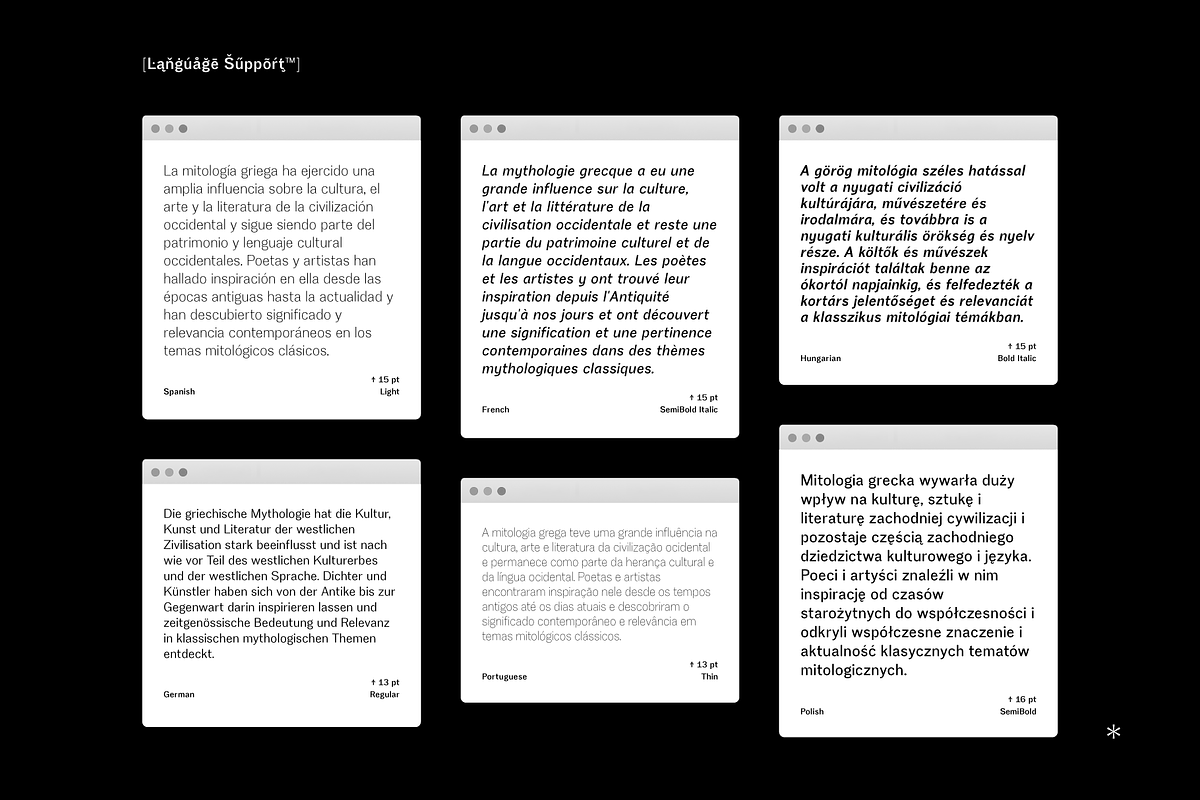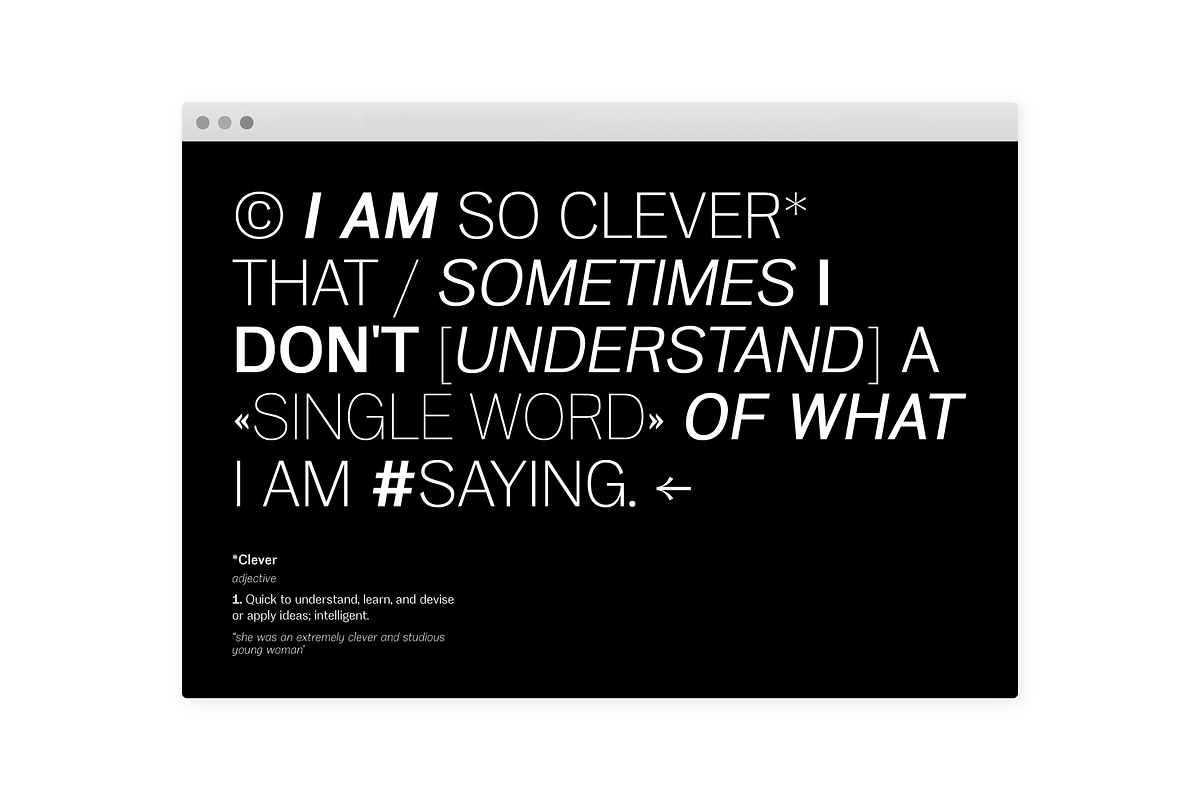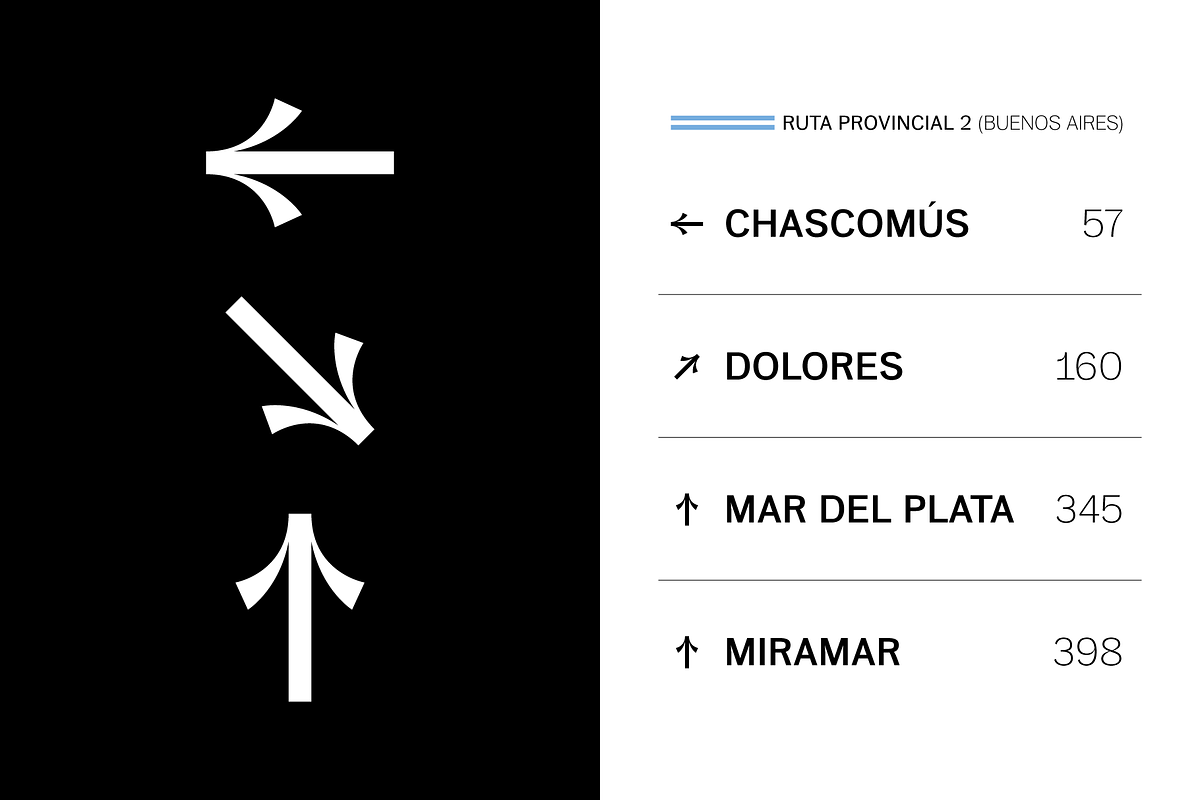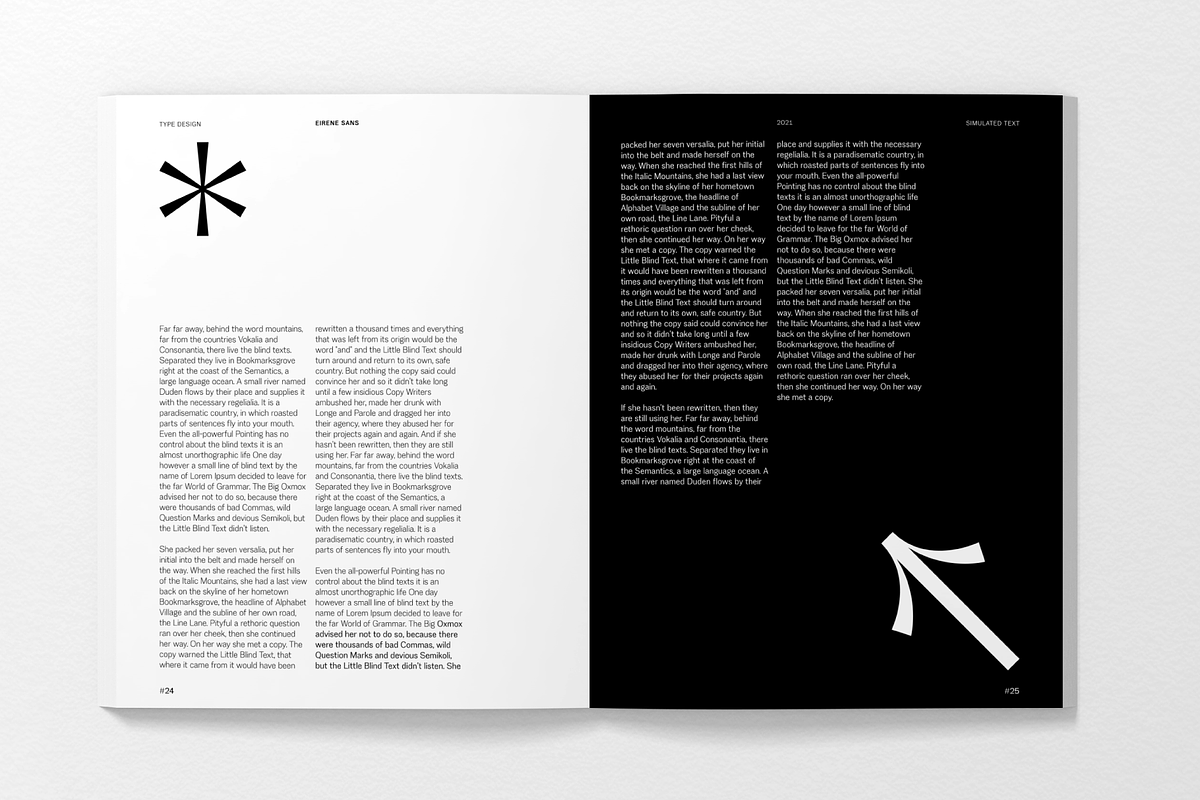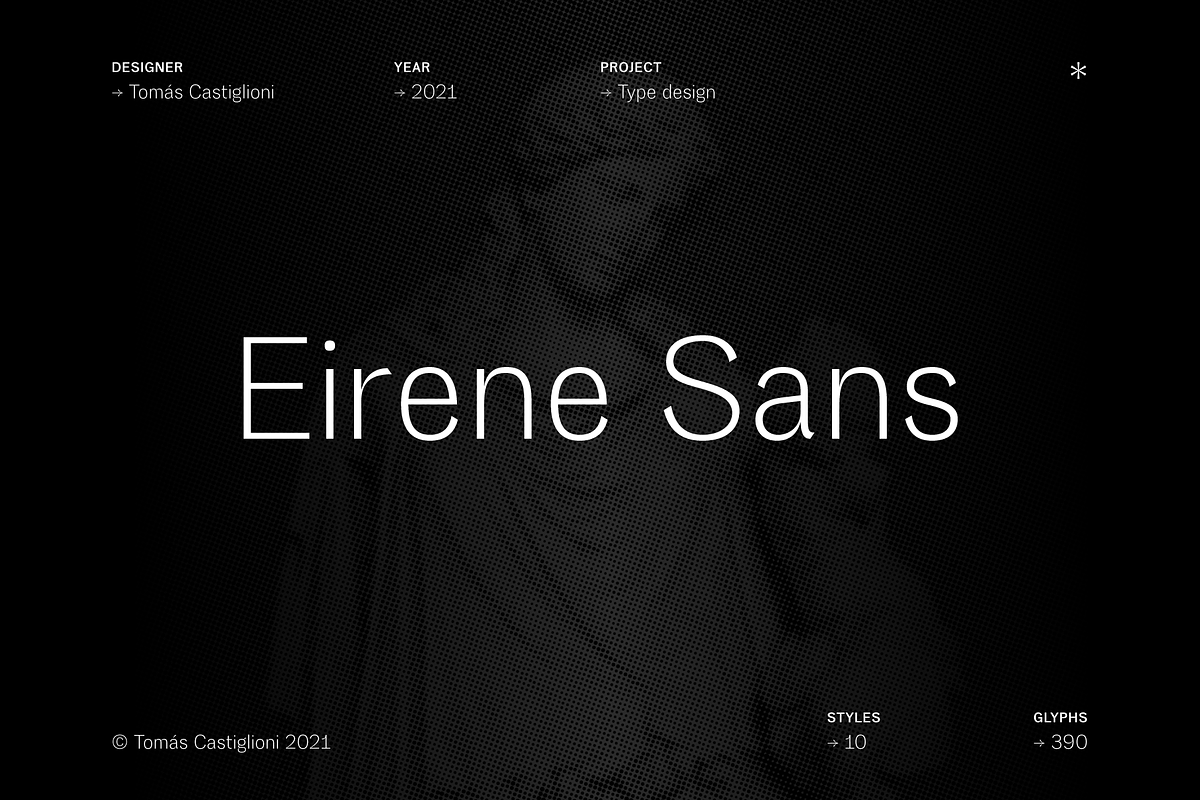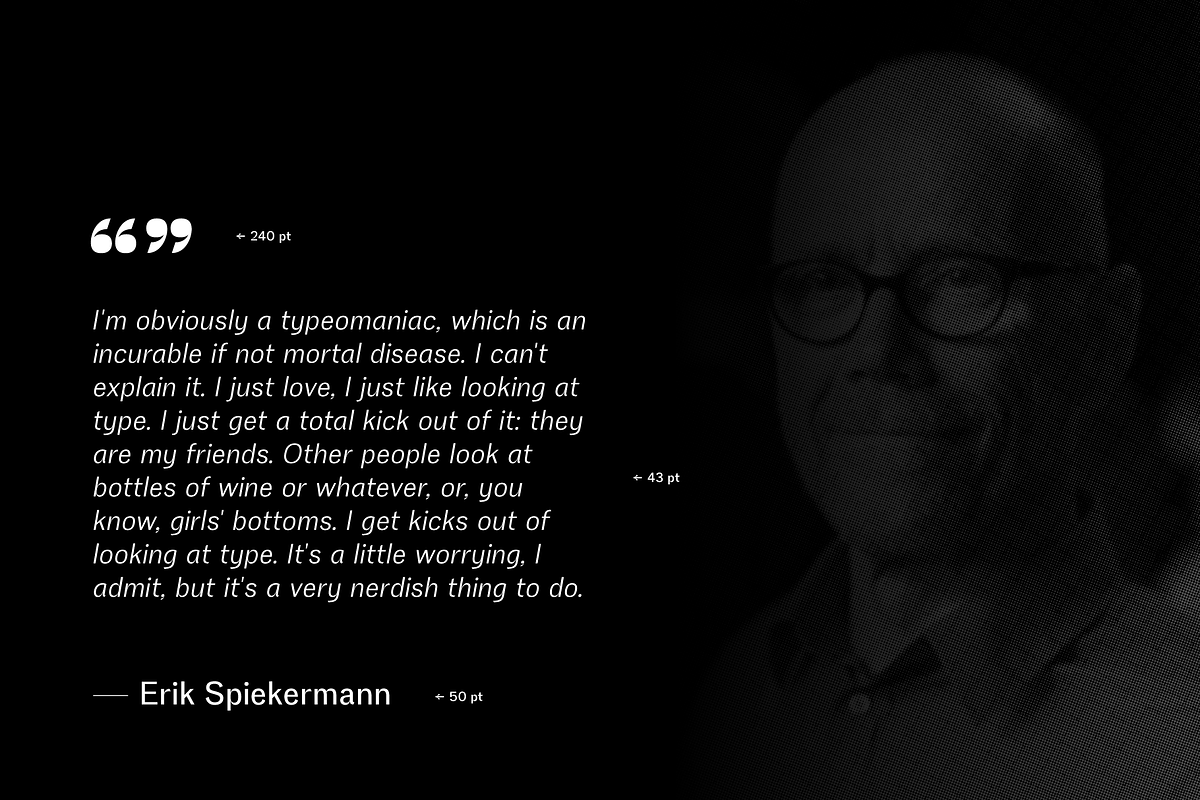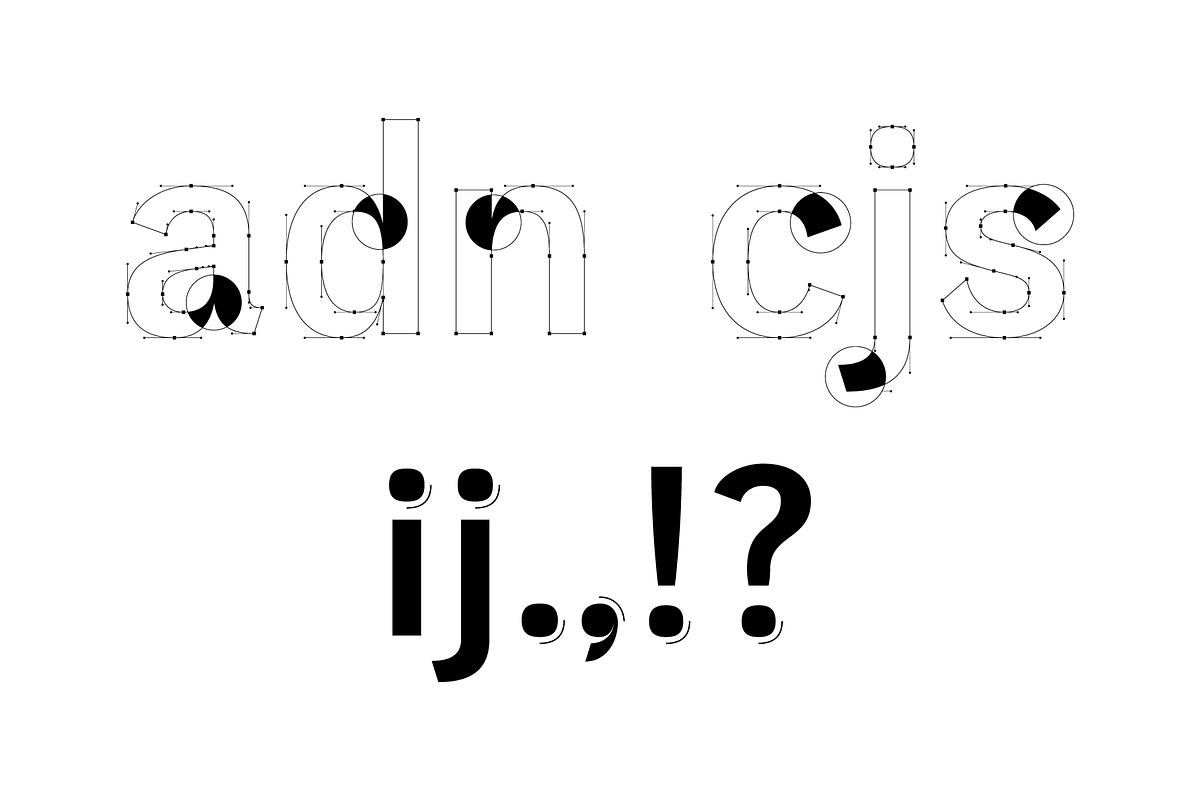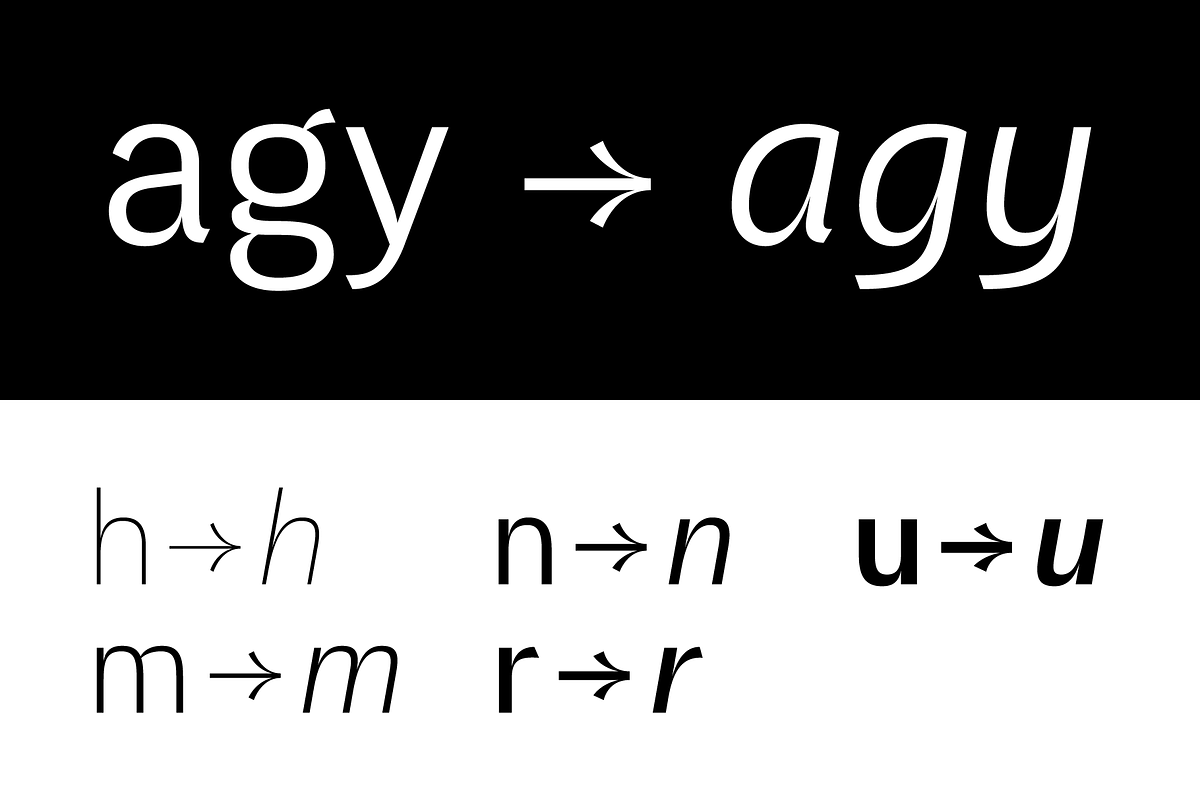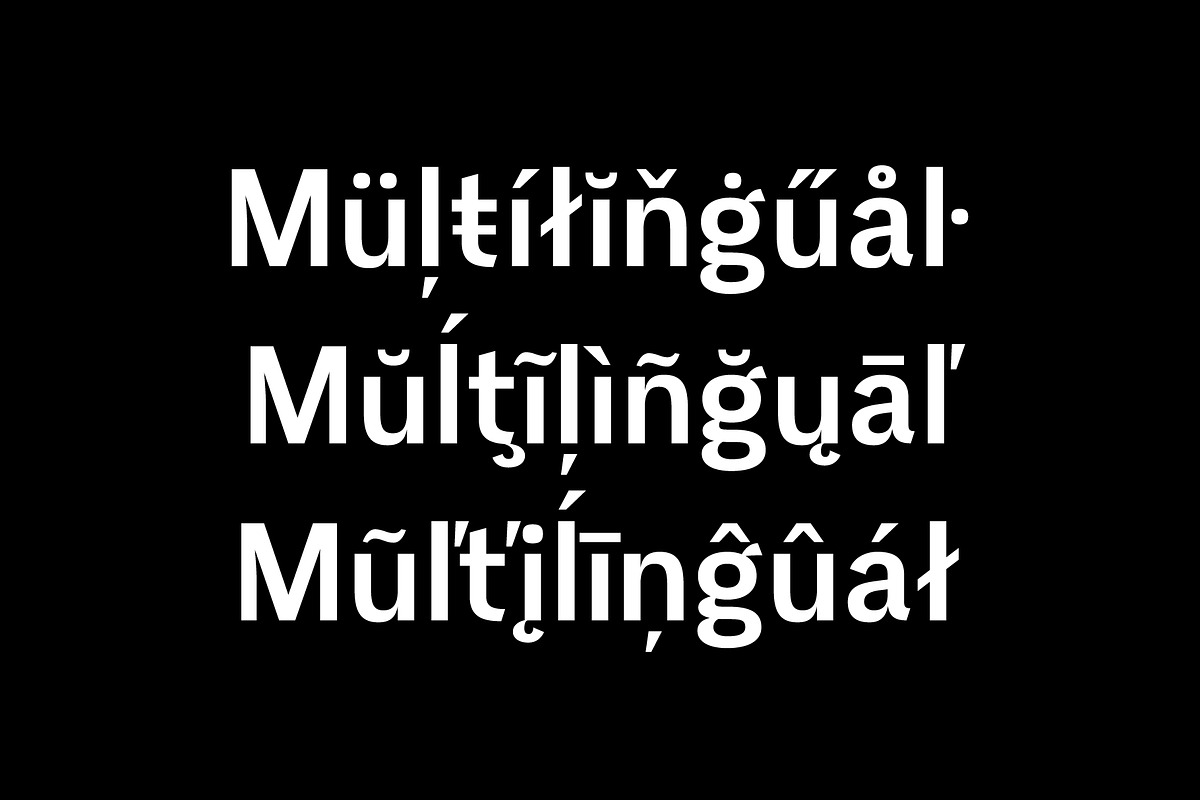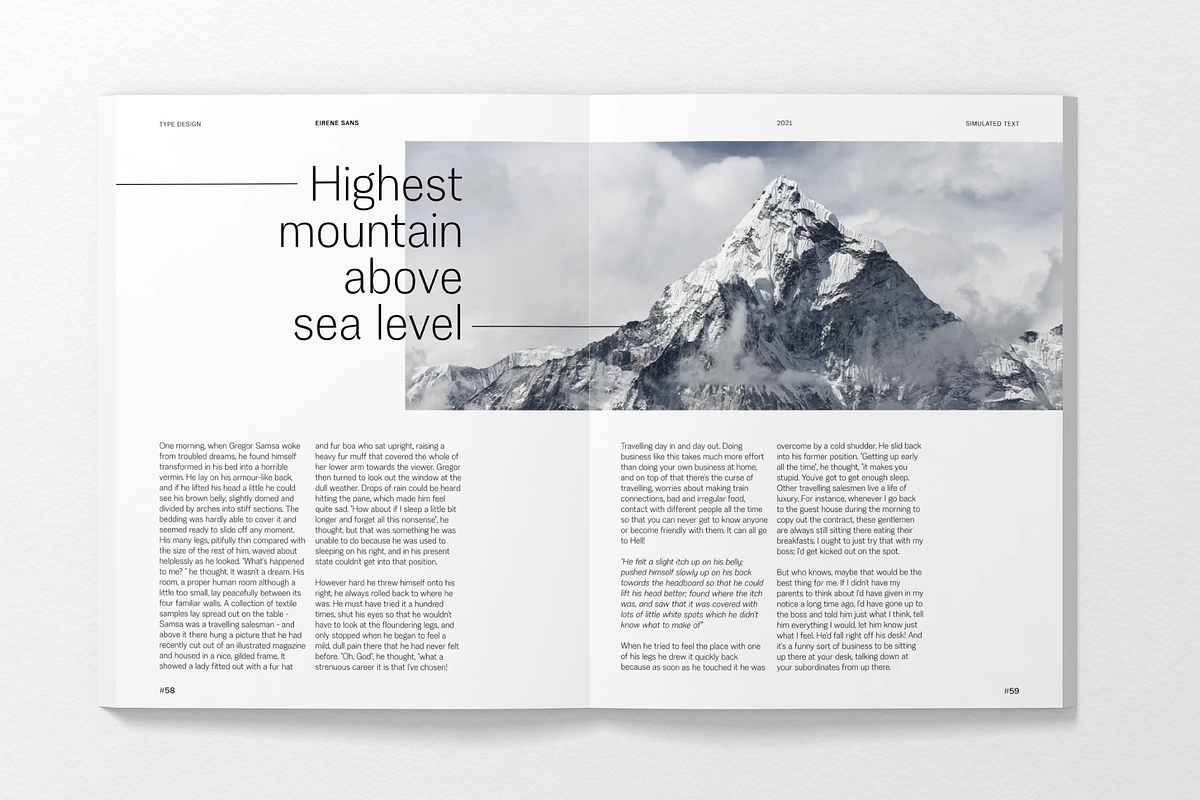
Eirene Sans - Type family
Eirene Sans is a sans serif type family inspired by humanist typefaces with some grotesque characteristics. Simple, modern, and functional are the principal features of this type family; the uppercase glyphs present a sophisticated personality. There are 5 weights available and matching italics. It is a bit more condensed than normal width and the difference between thin and thick stems and the unique terminals make the type family have this humanistic personality.
It has rounded forms in some letterforms and special characters (i, j, ., :, etc.), humanistic terminals, and very thin ink traps. Eirene Sans is perfect for digital and non-digital designs; it can be used in magazine titles, logo design, packaging design, and web design.
- 5 weights and matching italics
- Opentype features
- Arrow set
- Stylistic alternates (ft)
- Stylistic changes in italics
- Fractions
- Subscripts
- Inferior and superior numbers
- Language support (Latin extended)